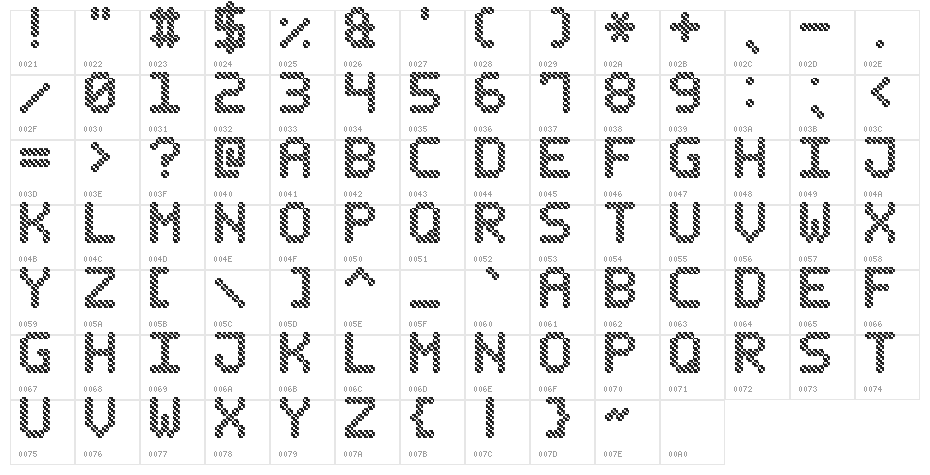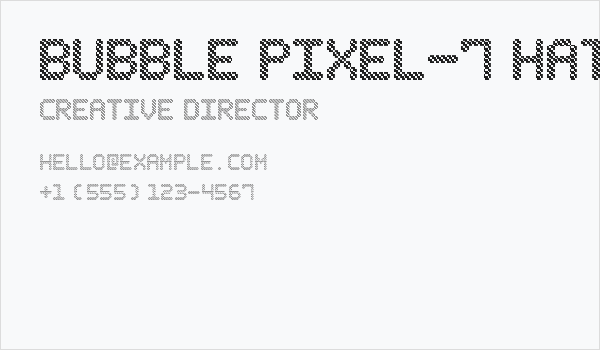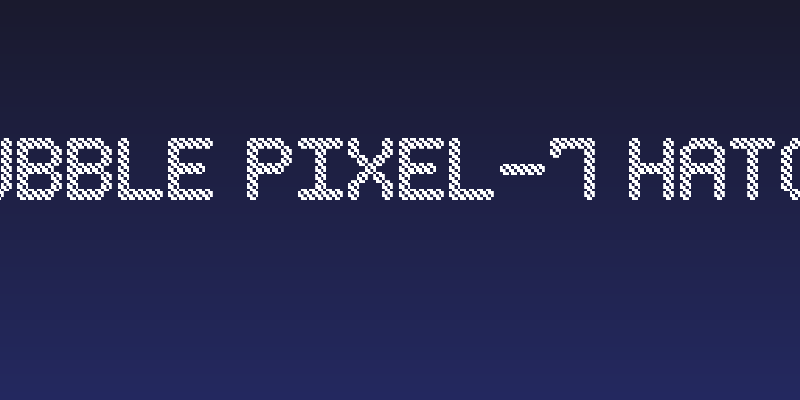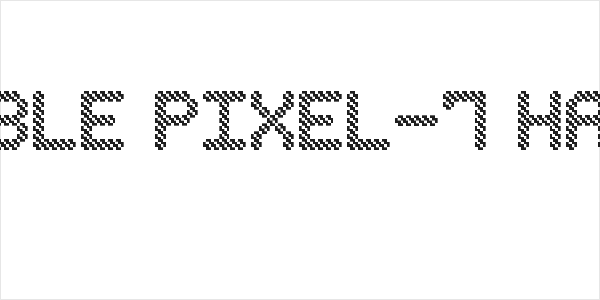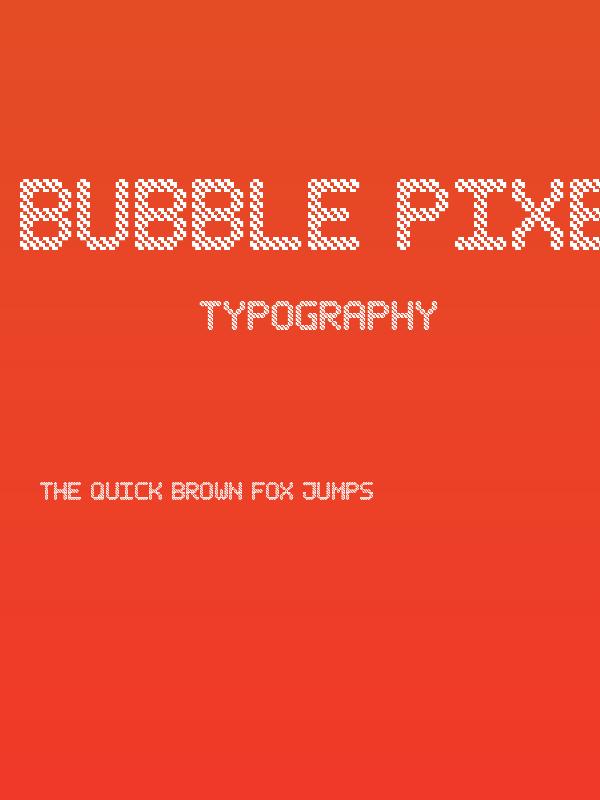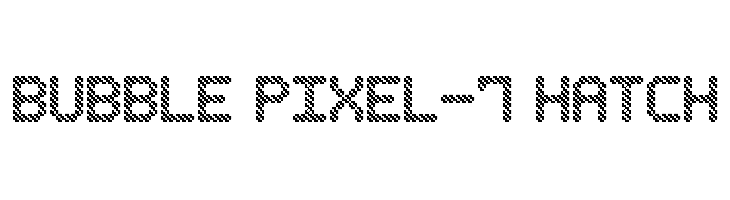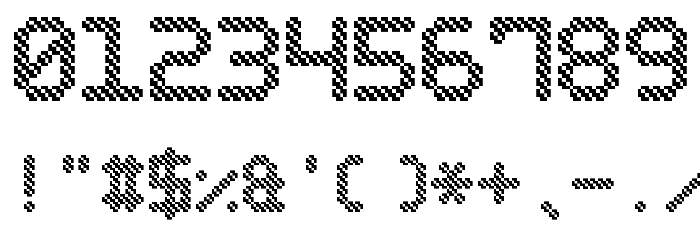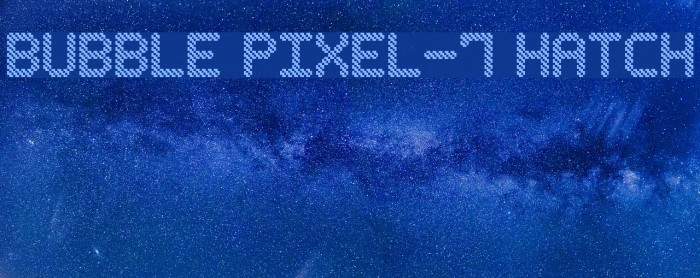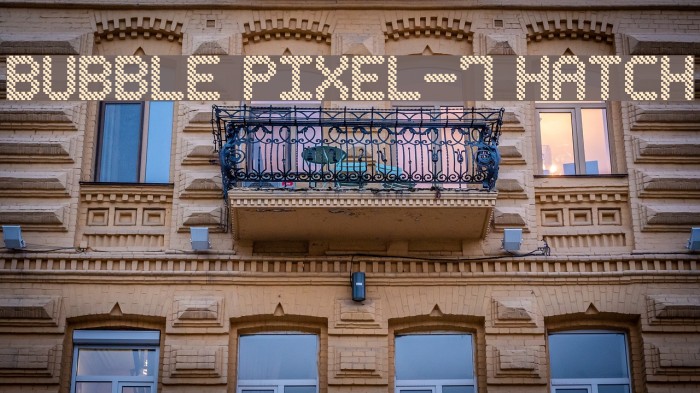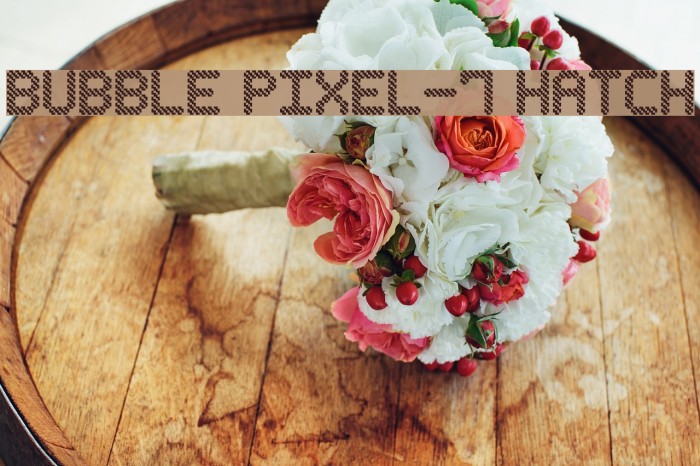
Bubble Pixel-7 Hatch Font
Bubble Pixel-7 Hatch Description
This font features a unique pixelated design with a bubble-like texture, creating a playful and retro aesthetic. Each character is composed of small, evenly spaced dots that form the outlines of letters and numbers, giving it a distinct digital appearance reminiscent of early computer graphics or video game typography. The consistent use of the dotted pattern across all characters ensures a cohesive look, while the rounded edges add a friendly and approachable feel. This style is particularly effective for projects that aim to evoke nostalgia or a sense of fun, making it suitable for creative and informal applications.
| Overall Style | Retro, Playful |
| Proposed Projects | Ideal for video game graphics, retro-themed designs, children's books, and playful branding. |